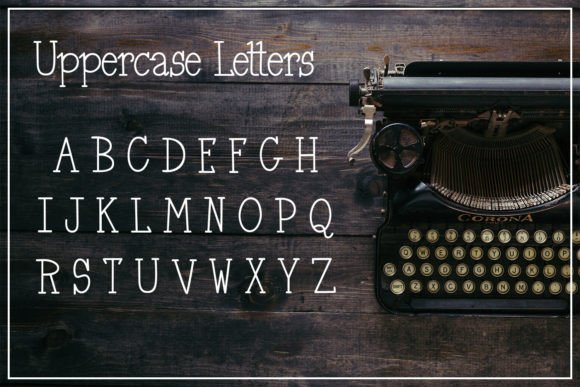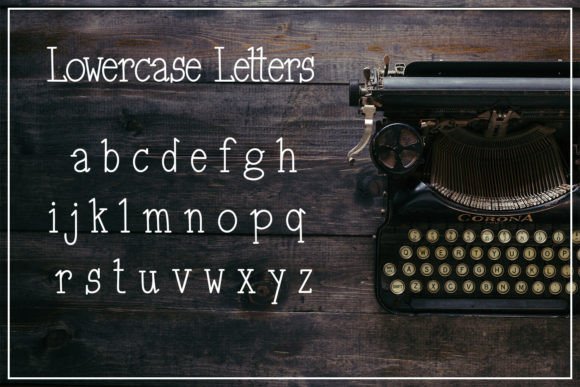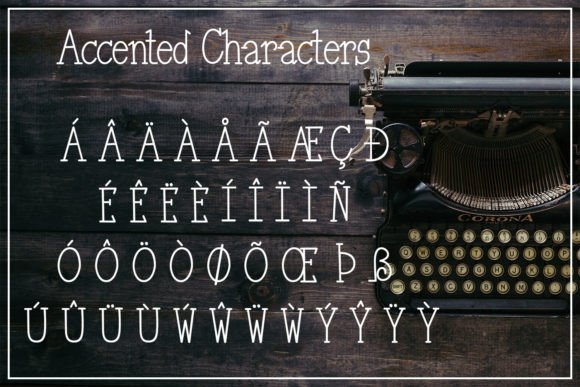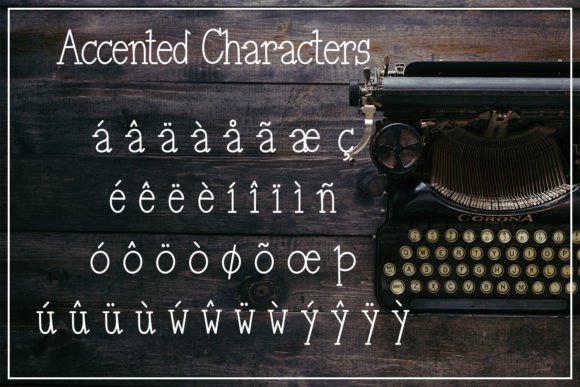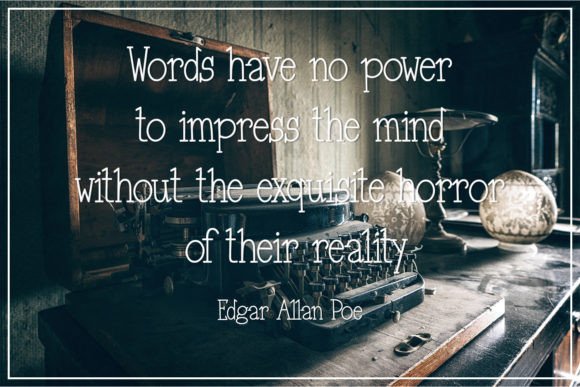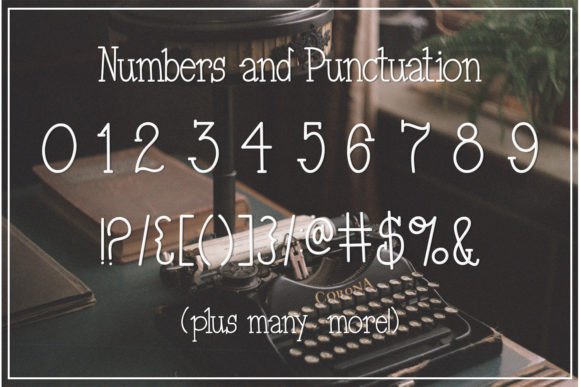
Introduction to Retro Type-writer Font
Add a touch of nostalgia and vintage charm to your designs with Retro Typewriter, a meticulously crafted hand-written font that takes inspiration from classic typewriters of yesteryear.
This versatile typeface is perfect for giving your projects a retro twist, whether youโre designing posters, invitations, logos, or anything in between .
Key Features of Retro Type-writer Font
Why Choose Retro Type-writer Font?
Retro Type-writer Font offers exceptional quality and versatility, making it a valuable addition to your design toolkit. Whether you’re creating for personal projects or commercial use, Retro Type-writer Font delivers professional results.